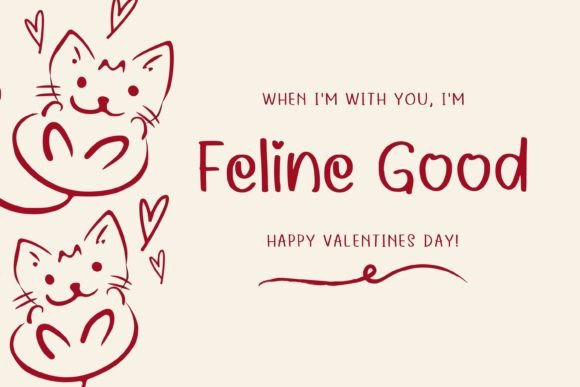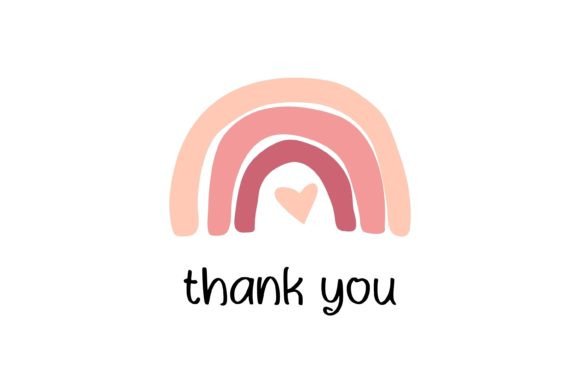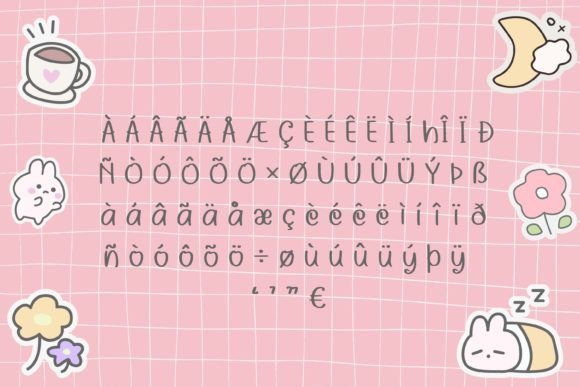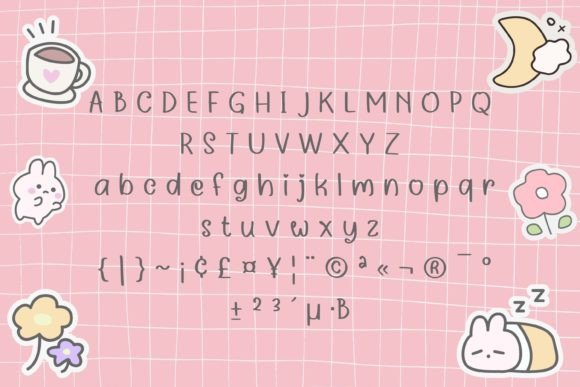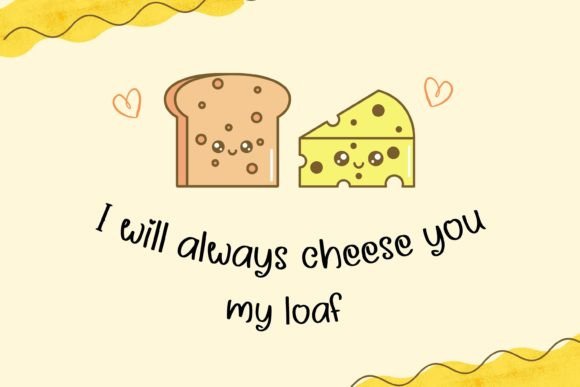
Introduction to Requcory Font
Requcory is a cute and lovely handwritten font that can be used for all chalkboard quotes or non-formal invitations.
Its authentic look will add a realistic feel to your designs .
Key Features of Requcory Font